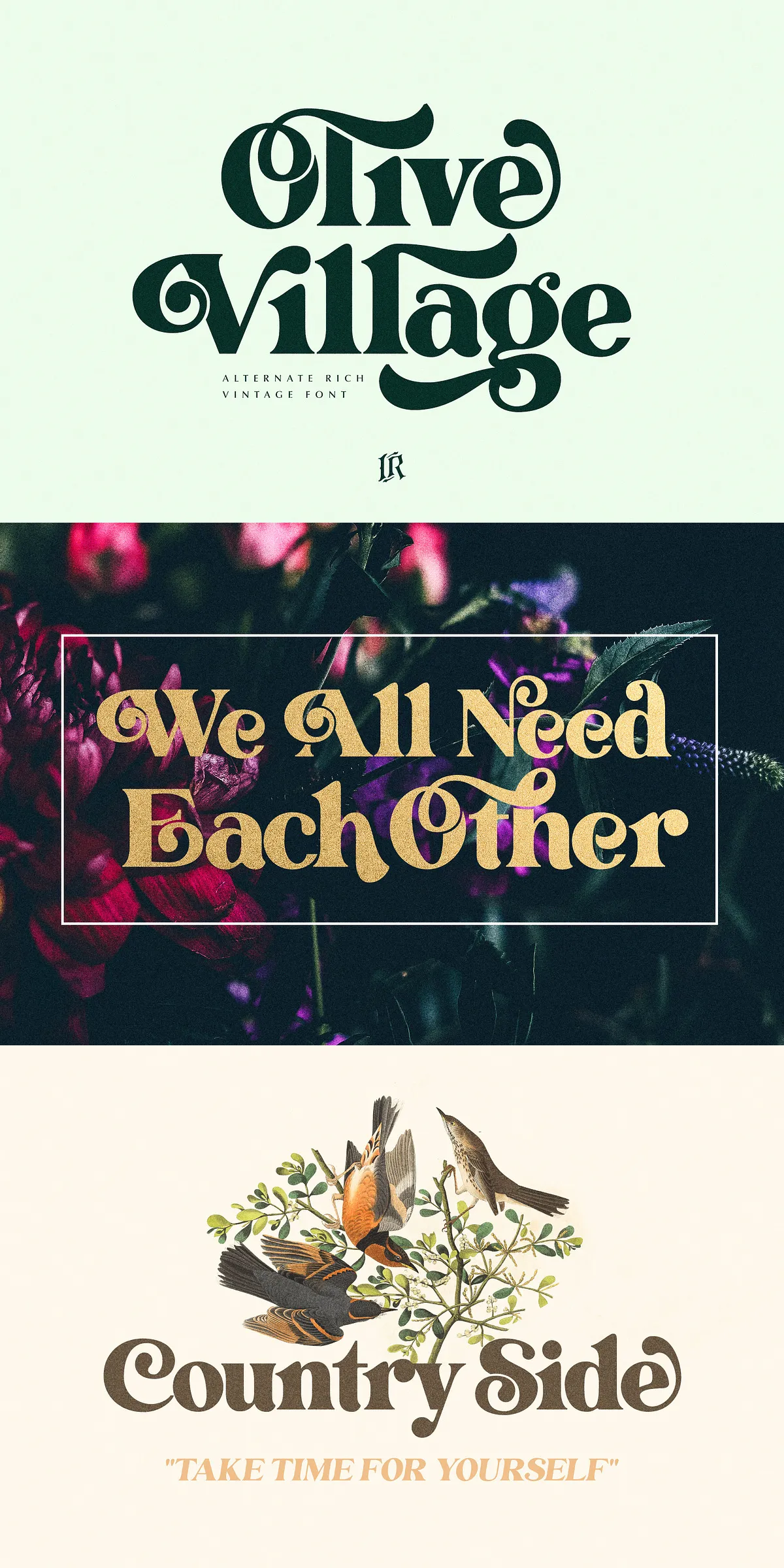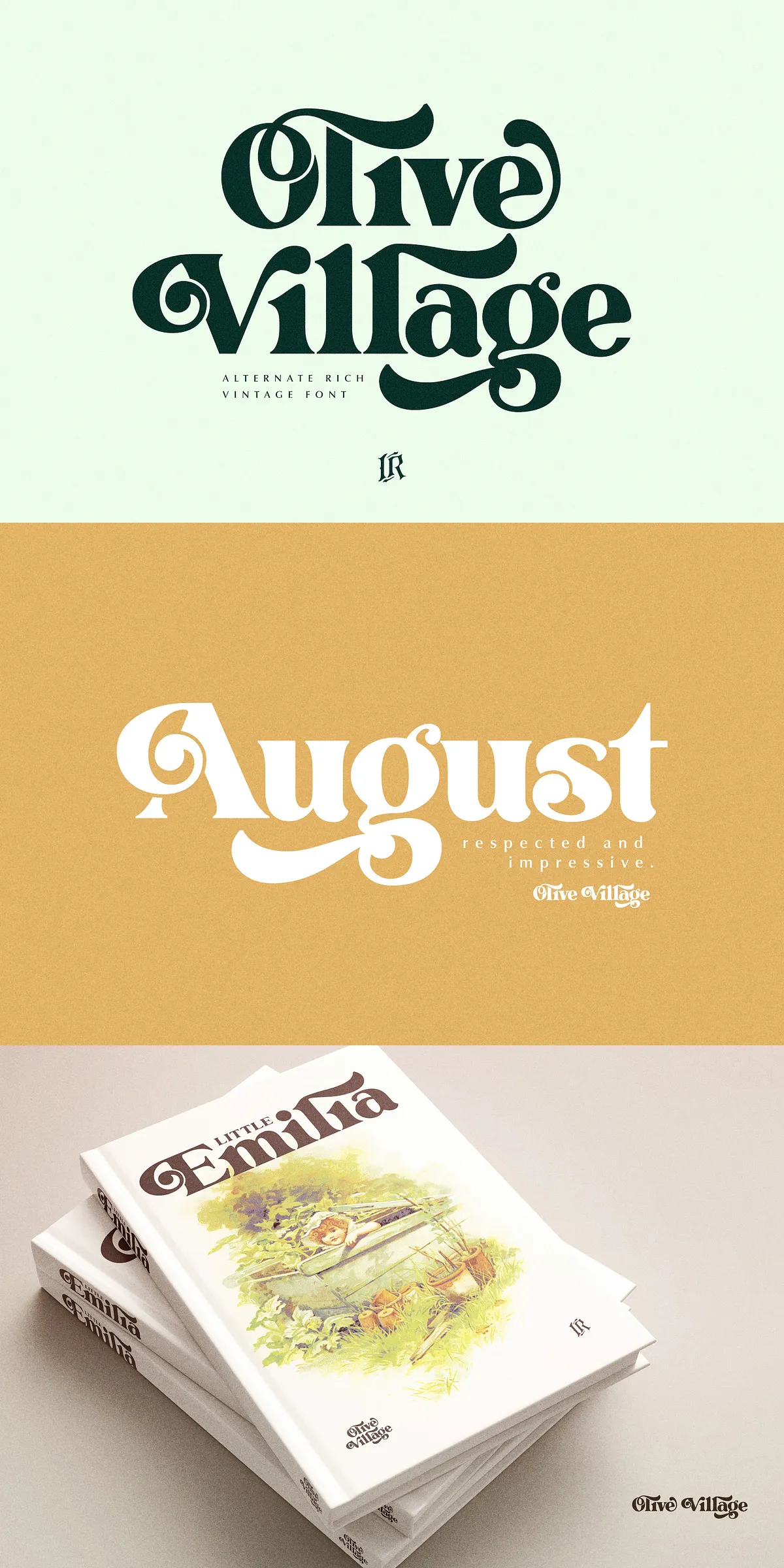
Olive Village is a stylish vintage font that channels the groovy spirit of the 1970s while incorporating a modern touch for contemporary design needs. This versatile display font shines at large sizes, making it perfect for headlines, titles, and short texts, yet it remains highly readable even at smaller text sizes. Olive Village offers designers a unique opportunity to infuse their projects with retro flair combined with clean, modern aesthetics.
Elegant Font Styles and OpenType Features
Olive Village comes in two distinct versions: Regular and Italic, allowing you to add dynamic emphasis and variety to your typography. Both styles provide access to a rich set of OpenType features, including a large selection of alternate glyphs and ligatures. These features enable you to customize your text with stylistic alternates and smooth letter connections, enhancing the overall visual appeal and uniqueness of your designs.
Designed for Display and Versatile Use
Primarily crafted as a display font, Olive Village excels in creating impactful headlines, titles, and branding elements. Its bold character and vintage-inspired shapes make it an excellent choice for advertising, vintage mood boards, logotypes, packaging, editorial design, and both modern and retro-themed projects. Whether you are designing for print or digital platforms, Olive Village adapts seamlessly to elevate your creative vision.
Extensive Multilingual Support
One of Olive Village’s standout features is its comprehensive language support. The font accommodates a wide array of languages, including but not limited to Abenaki, Afrikaans, Albanian, Basque, Bosnian, Catalan, Croatian, Czech, Danish, Dutch, English, Estonian, Finnish, French, German, Hungarian, Icelandic, Indonesian, Irish, Italian, Javanese, Kurdish, Latvian, Lithuanian, Malay, Norwegian, Polish, Portuguese, Romanian, Russian, Serbian, Slovak, Slovenian, Spanish, Swedish, Turkish, Uzbek, Welsh, and many more. This extensive coverage ensures your designs can communicate effectively across diverse linguistic audiences without sacrificing style or legibility.
Optimized for Professional Design Software
Ideal Applications for Olive Village
Olive Village’s blend of vintage charm and modern functionality makes it suitable for a variety of creative projects, including:
- Branding and Logotypes: Create memorable brand identities with a retro yet contemporary feel.
- Packaging Design: Add nostalgic appeal to product packaging that stands out on shelves.
- Editorial and Magazine Layouts: Enhance headlines and titles with stylish vintage typography.
- Advertising and Posters: Design eye-catching promotional materials with groovy 70s vibes.
- Social Media and Web Design: Use Olive Village to create distinctive online content that captures attention.
Why Choose Olive Village?
Olive Village offers a perfect balance between retro aesthetics and modern usability. Its groovy 70s inspiration combined with clean, readable letterforms makes it a versatile asset for designers seeking to evoke nostalgia without compromising contemporary design standards. The font’s extensive multilingual support and OpenType features further enhance its adaptability, ensuring it meets the demands of diverse projects and audiences.